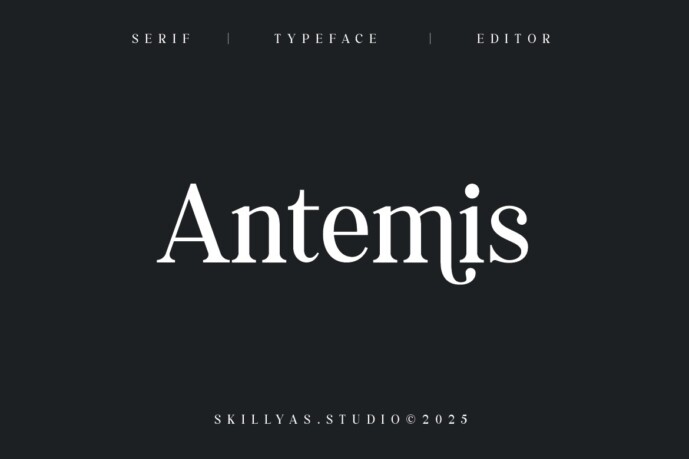
Antemis Serif Font
Designer: skillyasstudio
Antemis is an Elegant Serif Font with Graceful Curves and Classic Charm. Ideal for branding, editorial, invitations, and luxury packaging, it brings timeless beauty and refined sophistication to any design.
Character:
• Uppercase & Lowercase Letters
• Punctuation ​​& Symbols Support
• PUA encoded Range Standard Alternative Style
• Ligature (Standard and Discretionary)
• Multilingual Support